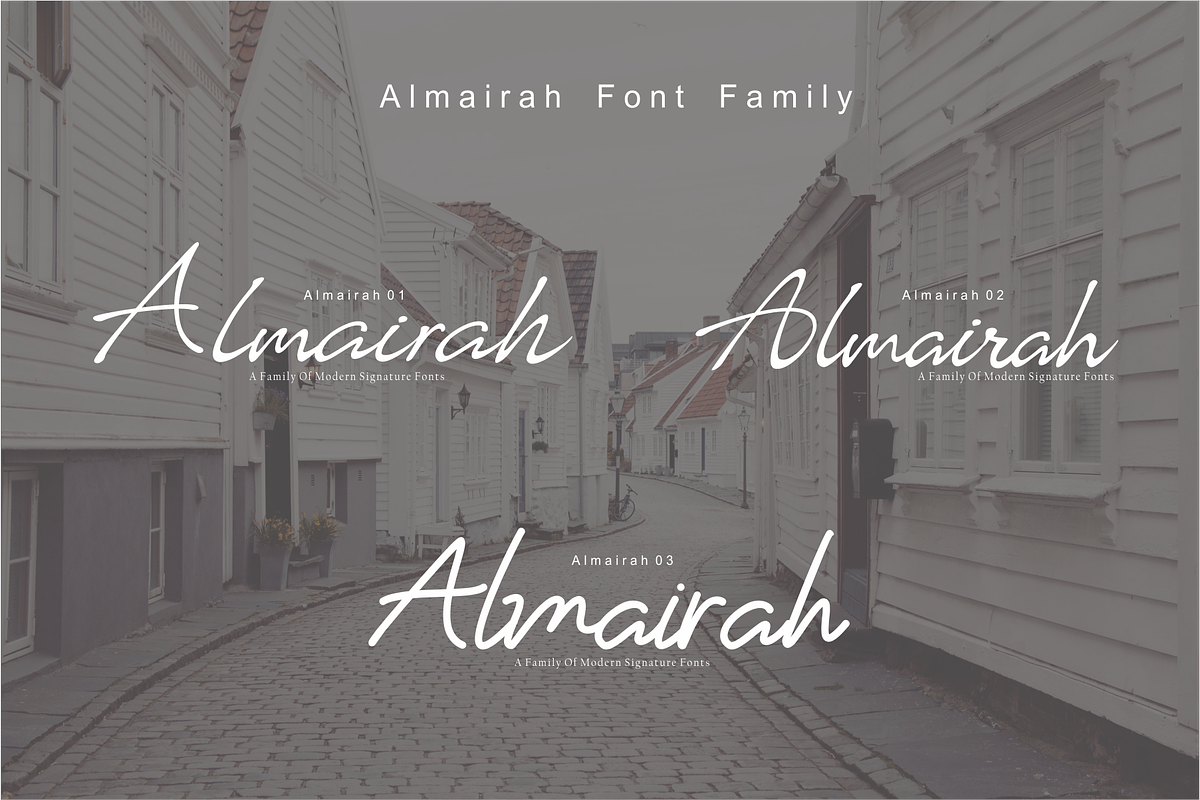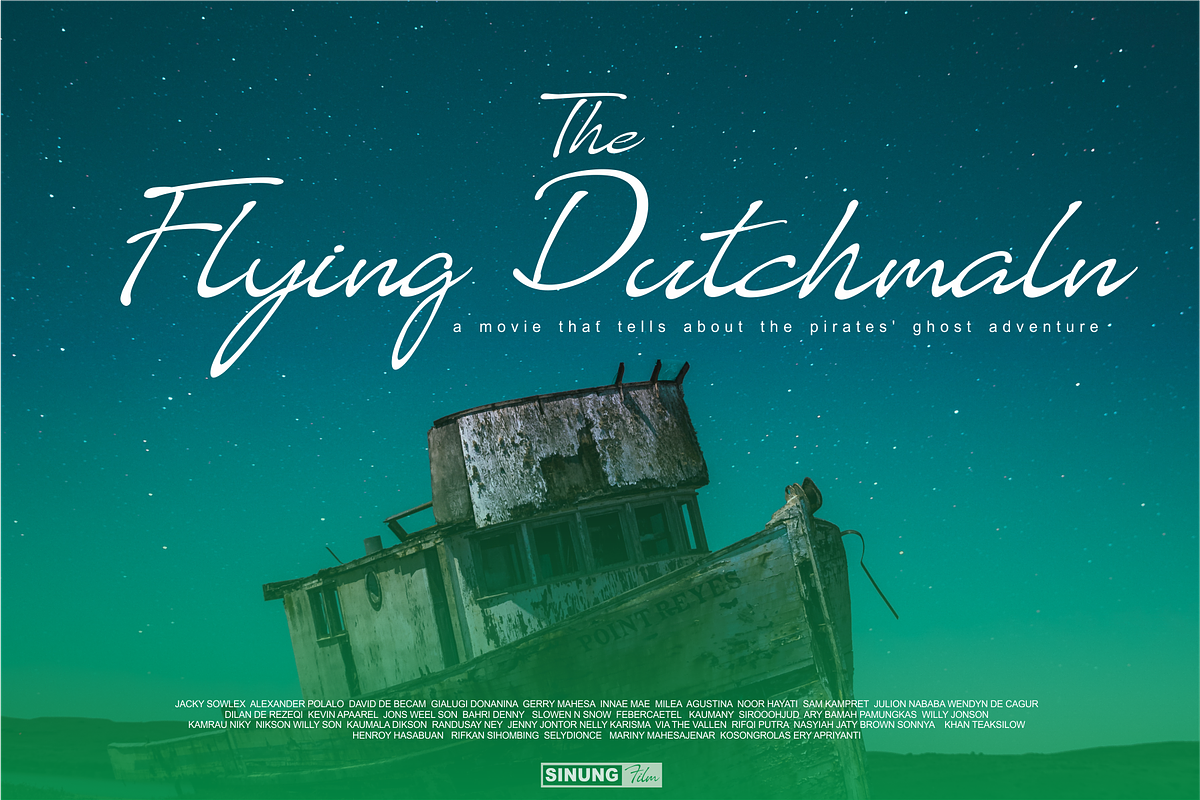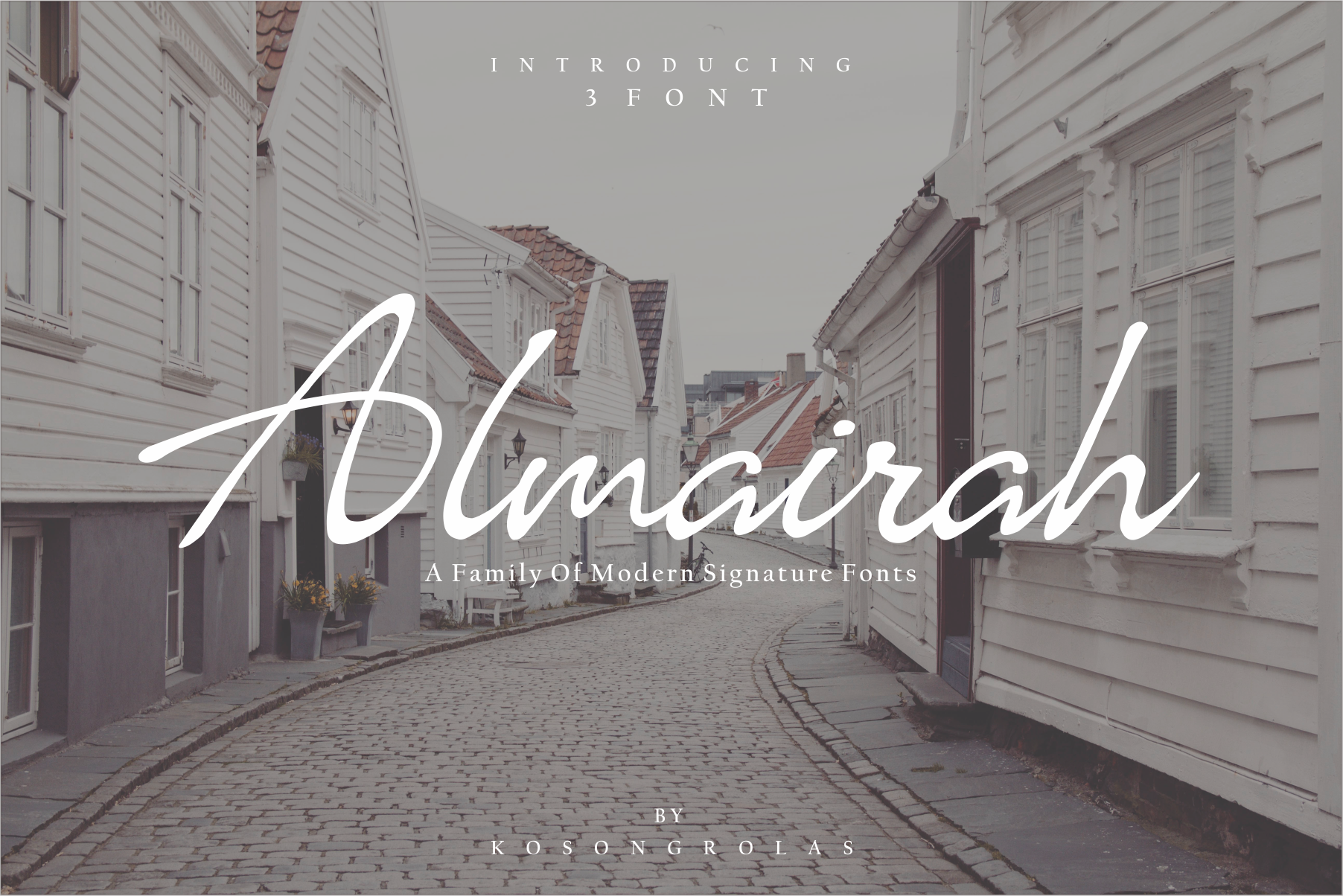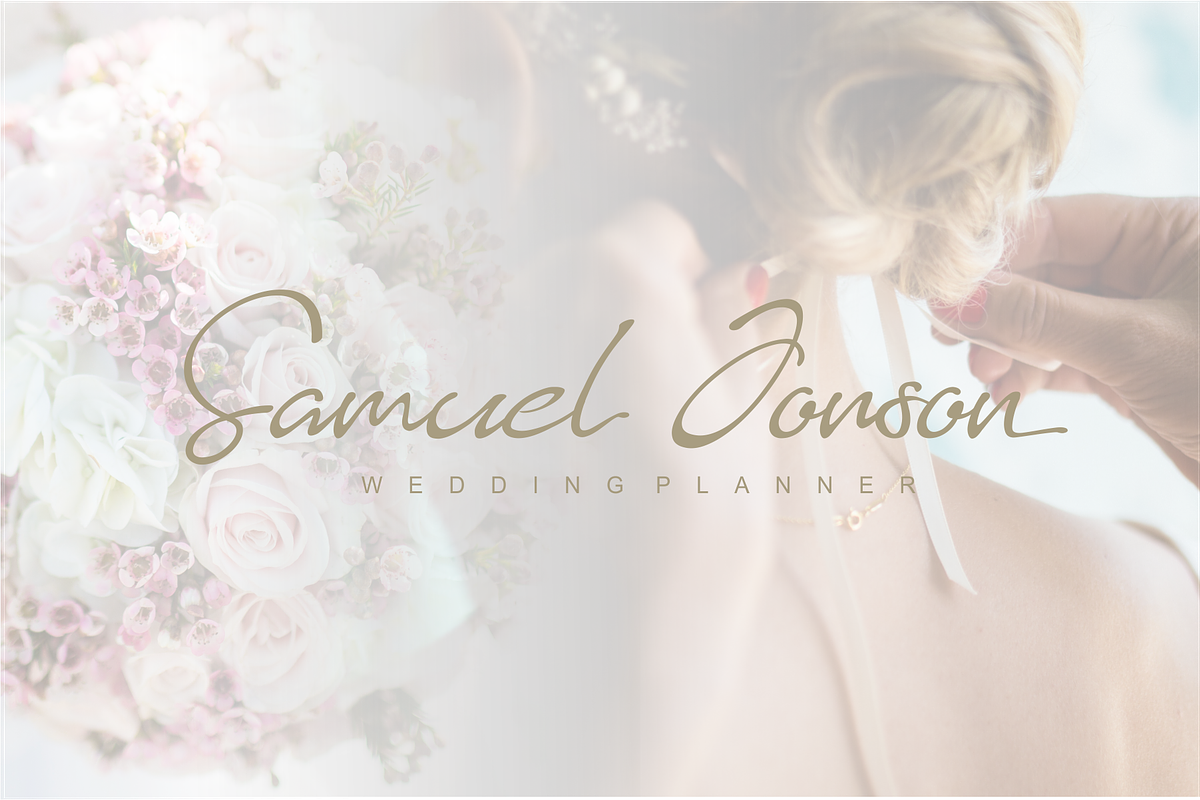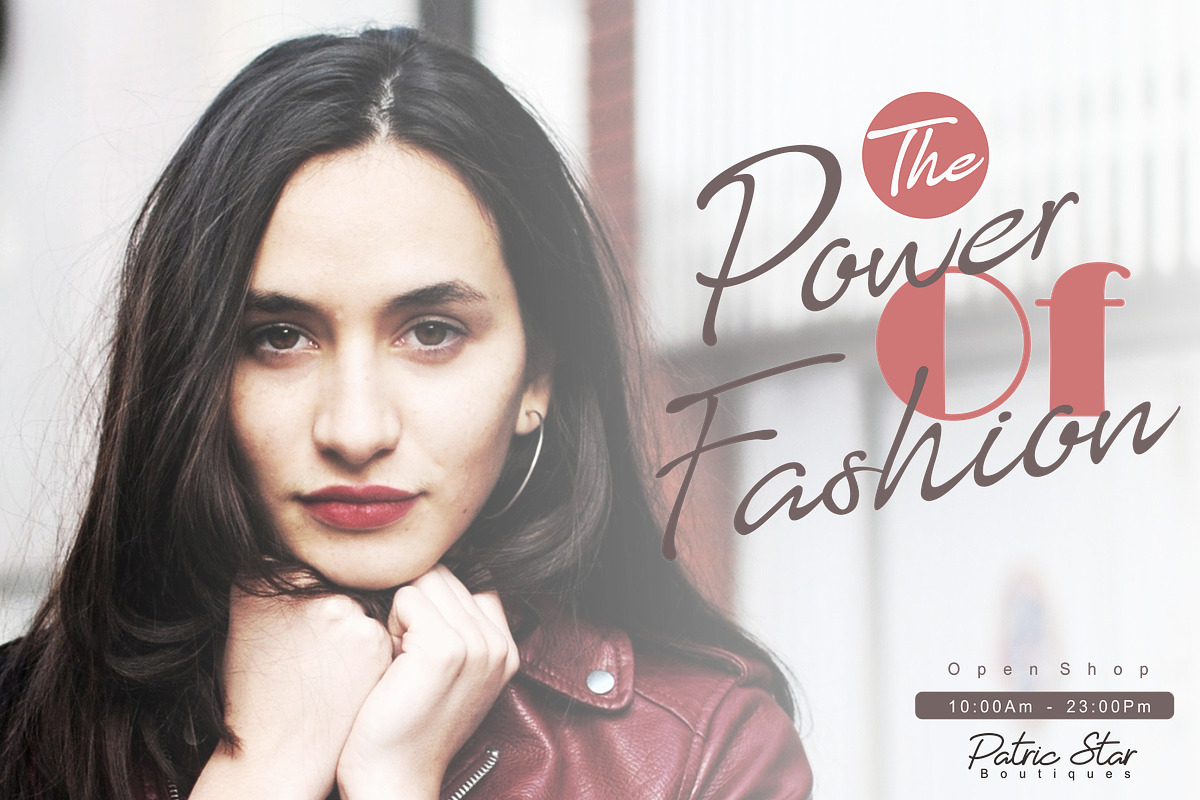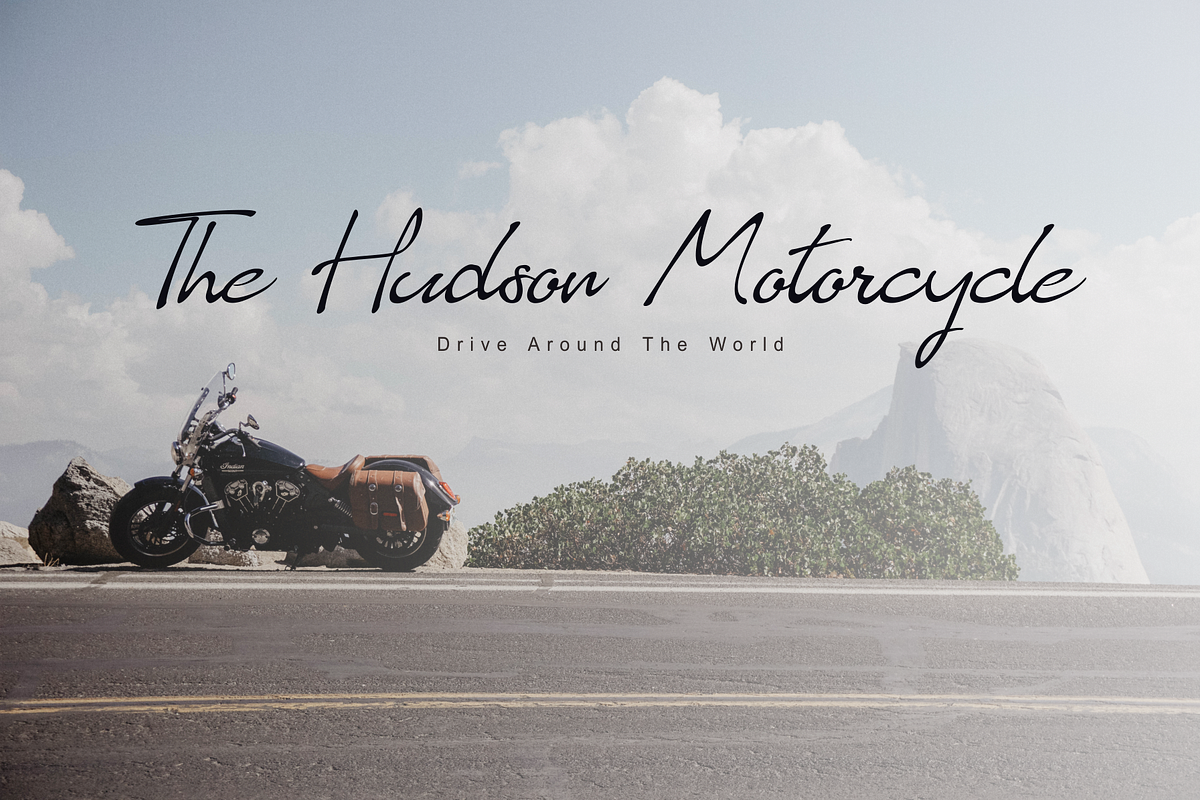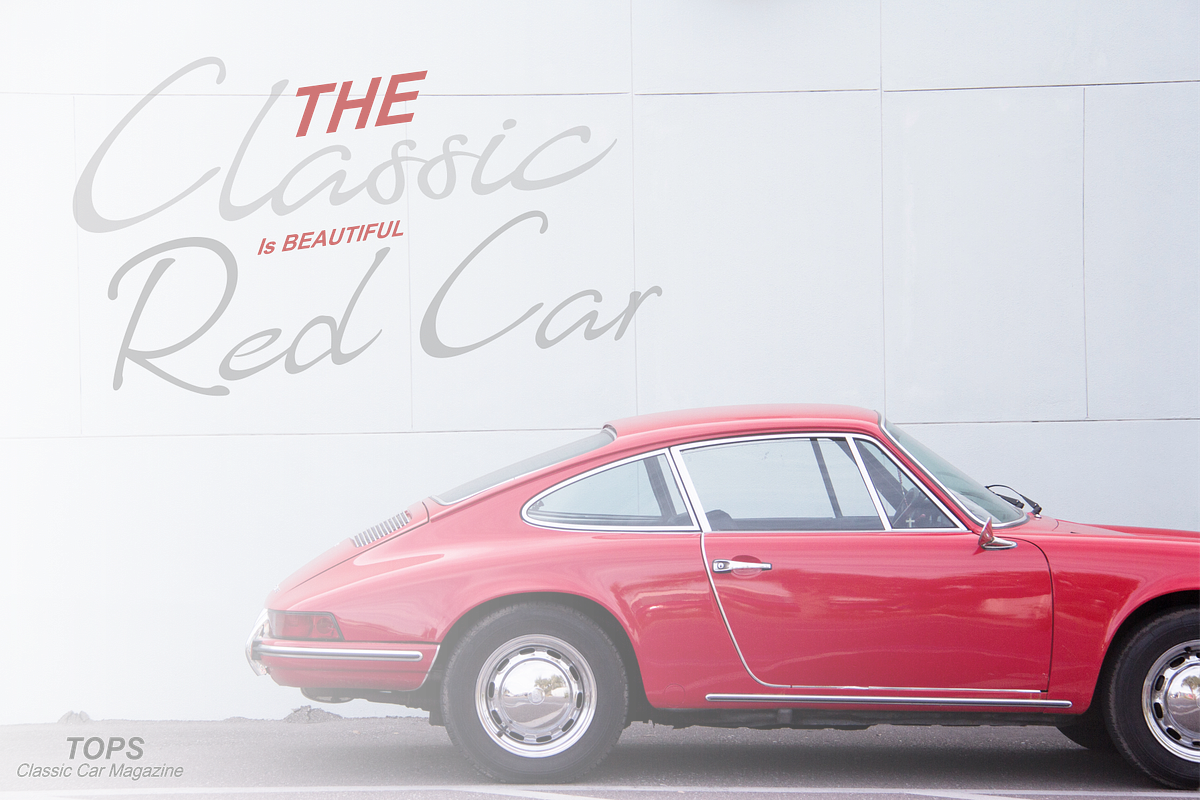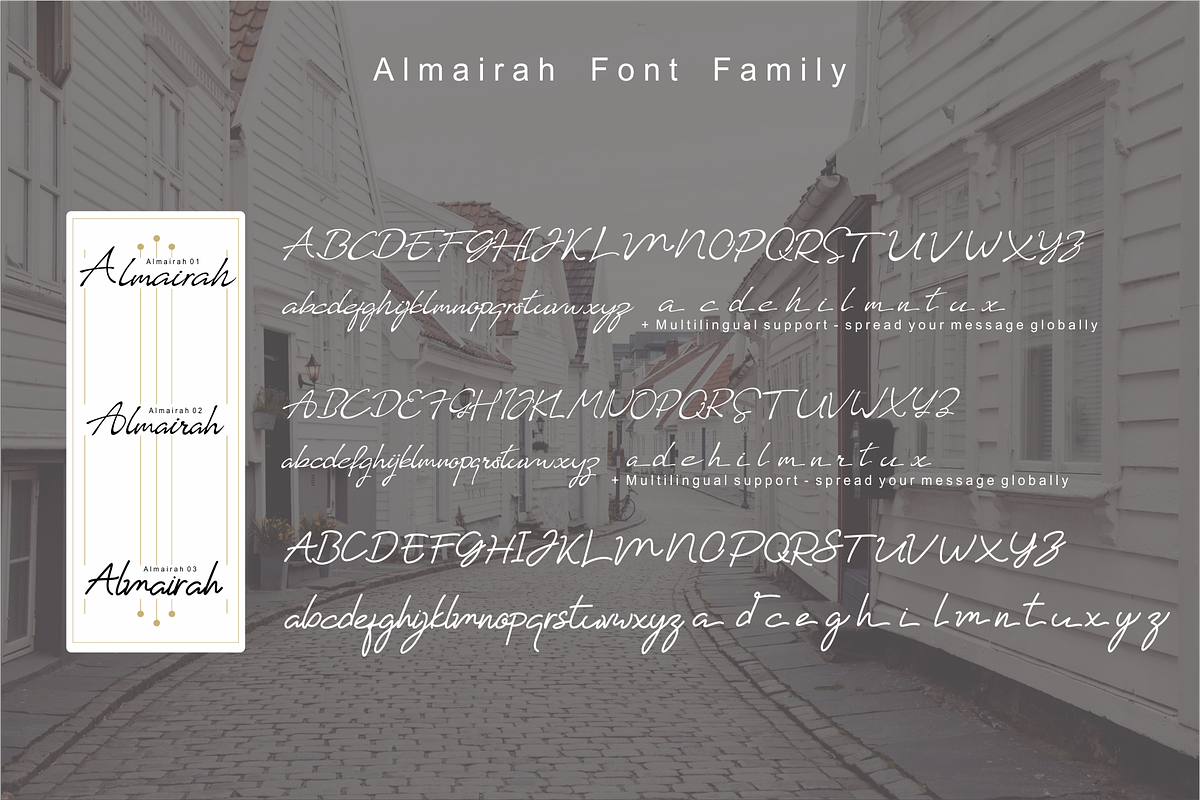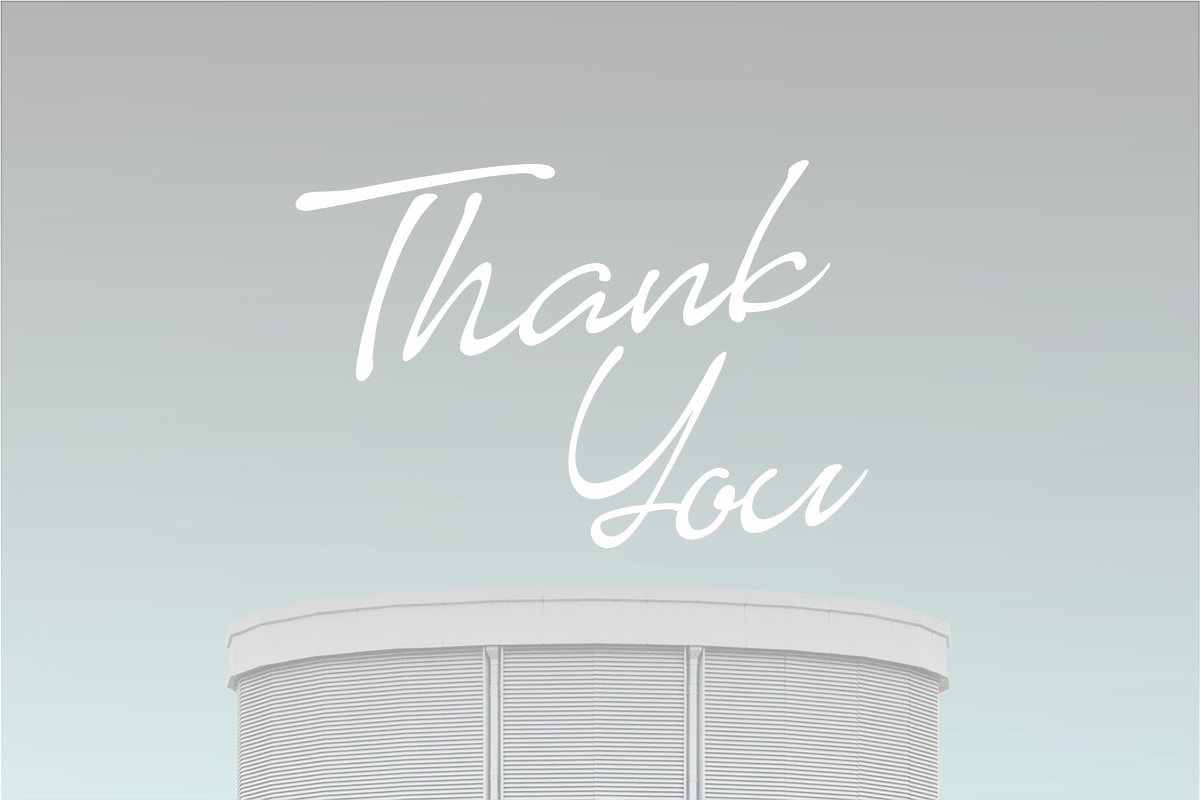
Almairah Family Font
Introducing Almairah Family Font, a classy signature font and there are three styling options. With freestyle flowing fonts this script looks elegant, classy, easy to read, stylish, beautiful and easy to use.
Almairah offers exquisite and fascinating typography harmony for diverse designs, including logos & branding, watermarks, posters, wedding designs, social media posts, advertisements, product designs & more.
Foreign languages support ÀÁÂÃÄÅÆÇÈÉÊËÌÍÎÏÐÑÒÓÔÕÖØÙÚÛÜÝßàáâãâñåñçèéêëìíîïðñòóôõöøùúûüýÿ